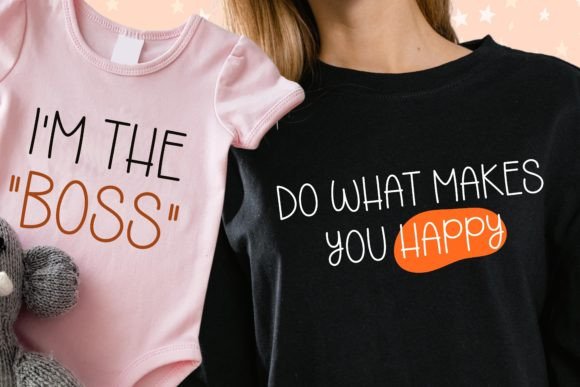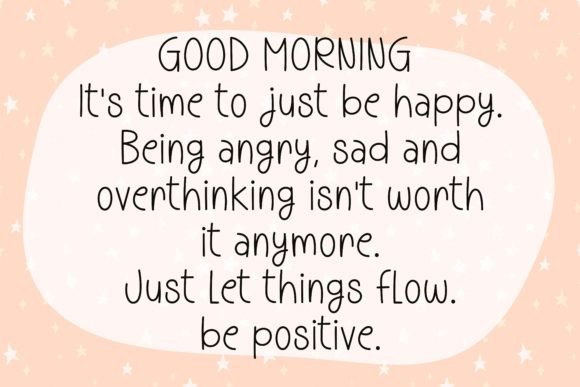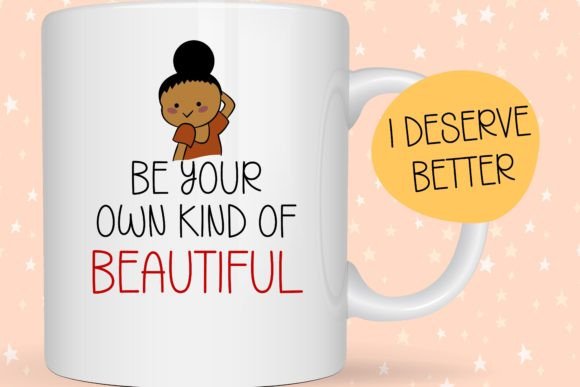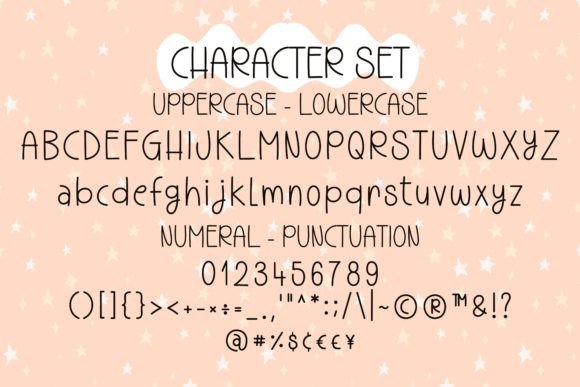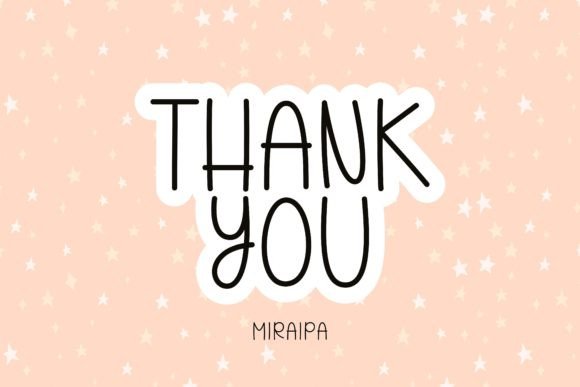
Dreaming Font: Add a Friendly Touch to Your DIY Projects
Are you looking for a font that can add a playful and whimsical touch to your designs? Look no further than the Dreaming Font! Designed in a cute and friendly sans serif font style, Dreaming is the perfect choice for a variety of projects that require a charming and quirky feel. In this article, we’ll explore the features of the Dreaming Font and how it can bring your DIY projects to life.
What is Dreaming Font?
Dreaming Font is a sans serif font that is designed to be charming, whimsical, and a bit quirky. Its cute and friendly style makes it perfect for projects that require a playful touch. The font is versatile and can be used for a wide range of designs, from posters and blogs to clothing and child-related designs.
Features of Dreaming Font
The Dreaming Font has several features that make it an ideal choice for designers and crafters. Some of its key features include:
- Cute and Friendly Style: The Dreaming Font has a unique and adorable style that is sure to capture the attention of your audience.
- Sans Serif Font: The font is designed in a sans serif style, which makes it easy to read and perfect for digital designs.
- Whimsical and Quirky: The font has a playful and quirky feel that makes it perfect for designs that require a friendly touch.
- Versatile: The Dreaming Font can be used for a wide range of designs, from posters and blogs to clothing and child-related designs.
Use Cases for Dreaming Font
The Dreaming Font is perfect for a variety of projects, including:
- Posters: Add a playful touch to your posters with the Dreaming Font. It’s perfect for movie posters, event posters, and more.
- Blogs: Use the Dreaming Font to add a friendly touch to your blog. It’s perfect for lifestyle blogs, parenting blogs, and more.
- Clothing: The Dreaming Font is perfect for designing t-shirts, hoodies, and other clothing items. It’s a great way to add a playful touch to your designs.
- Child-Related Designs: The font is perfect for designing materials for kids, such as children’s books, nursery decor, and more.
- Greeting Cards: Use the Dreaming Font to create playful and whimsical greeting cards for special occasions.
- Social Media Posts: Add a friendly touch to your social media posts with the Dreaming Font. It’s perfect for creating engaging and playful content.
Why Choose Dreaming Font?
There are many reasons why you should choose the Dreaming Font for your DIY projects. Here are a few:
- Unique Style: The Dreaming Font has a unique and adorable style that is sure to capture the attention of your audience.
- Easy to Read: The font is designed in a sans serif style, which makes it easy to read and perfect for digital designs.
- Versatile: The Dreaming Font can be used for a wide range of designs, making it a great addition to your font library.
- Perfect for DIY Projects: The font is perfect for DIY projects, such as crafting, scrapbooking, and more.
| Author | miraipa |
In conclusion, the Dreaming Font is a great choice for designers and crafters who want to add a playful and whimsical touch to their designs. Its cute and friendly style, sans serif font, and versatile nature make it perfect for a wide range of projects. Whether you’re designing posters, blogs, clothing, or child-related designs, the Dreaming Font is sure to bring your DIY projects to life. So why wait? Add the Dreaming Font to your font library today and start creating!
- The Dreaming Font is a cute and friendly sans serif font style.
- It’s perfect for a variety of projects, including posters, blogs, clothing, and child-related designs.
- The font is versatile and easy to read.
- It’s perfect for DIY projects, such as crafting, scrapbooking, and more.